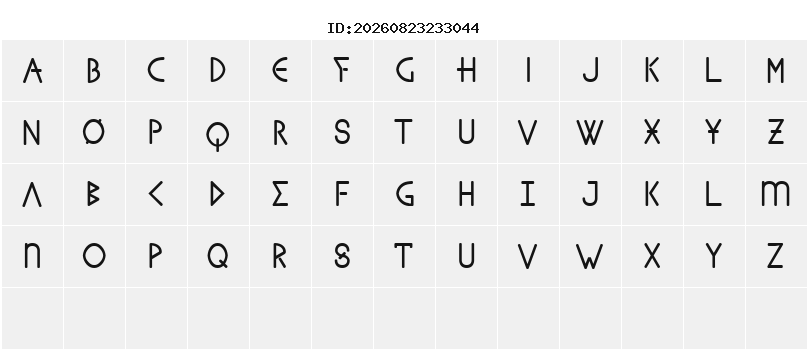
Sanhedrin Preview
• Font Name: Sanhedrin
• Full Font Name: Sanhedrin
About Sanhedrin.ttf
Sanhedrin.ttf is a modern, elegant sans-serif font designed for ultimate readability and visual harmony. Perfect for branding, headlines, web design, and print materials.